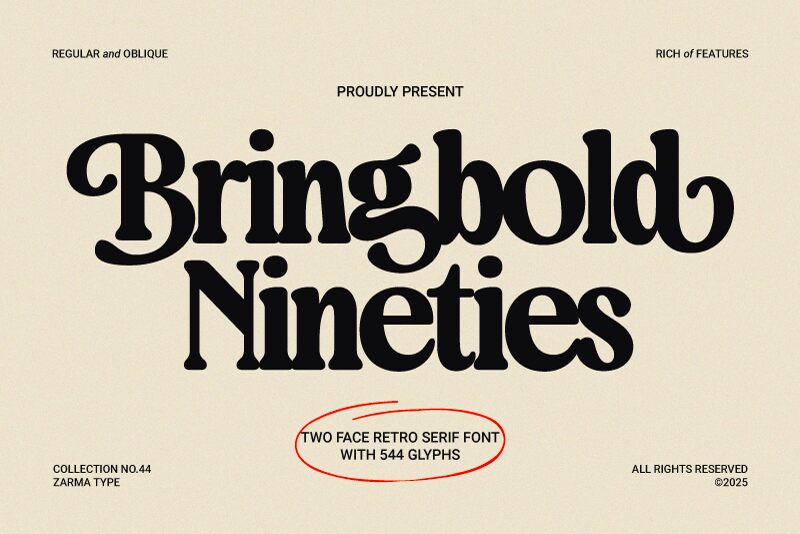
Bringbold Nineties by Zarma Type is a free retro display font with a soft, late-60s-to-70s groove. The letters feel weighty and friendly, mixing bulbous curves, pinched joins, and rounded teardrop endings that give the whole font a bouncy, poster-like rhythm.
It fits naturally in music branding, cafe menus, product packaging, magazine cover lines, and title cards where a free font needs a warm throwback voice rather than a strict vintage revival. Use it for short headlines, logos, or monogram-style initials when you want those swollen curves and curling endings to do most of the talking.